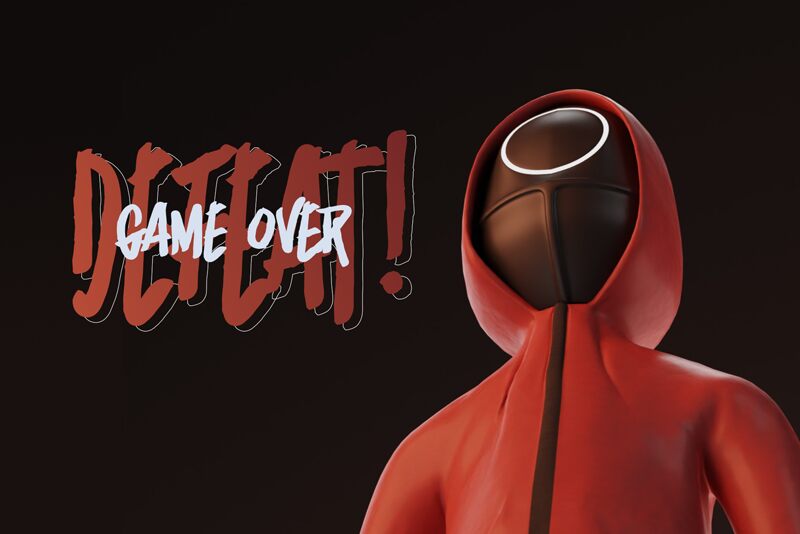
Worst Darkness
Worst Darkness font by DumadiStyle is a grungy handwritten font noted for its chaotic rebellious design that brings raw energy and expressive character to any project. This condensed-width font is intentionally crafted to appear disorganized, making it ideal for projects where you need to convey a sense of moodiness or extreme individuality.
This free handwritten typeface will look interesting on album covers, book covers, games, website titles, movie posters, clothes branding, badges, logos and logotypes among other usages. Magazines in grunge styles can also use it for headers.